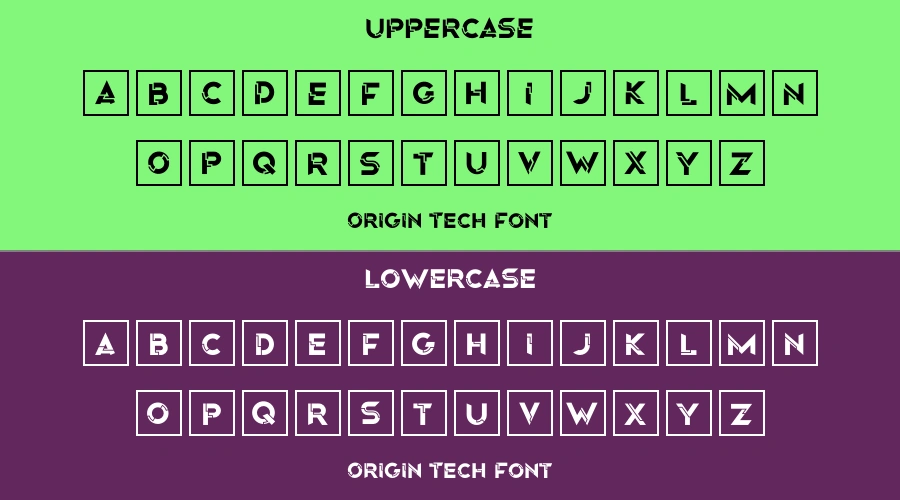
About Origin Tech Font
Origin Tech Font embodies typographic excellence through its masterful combination of clean lines and professional finish. Created for logo design, this typeface delivers exceptional versatility and creative impact across all applications. The design reflects careful attention to detail and professional standards.
Advanced capabilities include distinctive convex bowls and versatile stylistic sets, giving designers creative control. When used in specification lists, Origin Tech Font exhibits remarkable microfilm readability. The harmonious balance between bowl shape and cultural relevance sets this typeface apart.